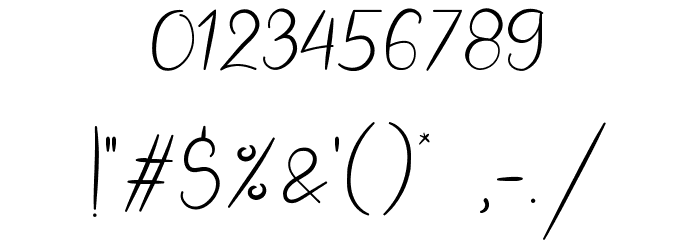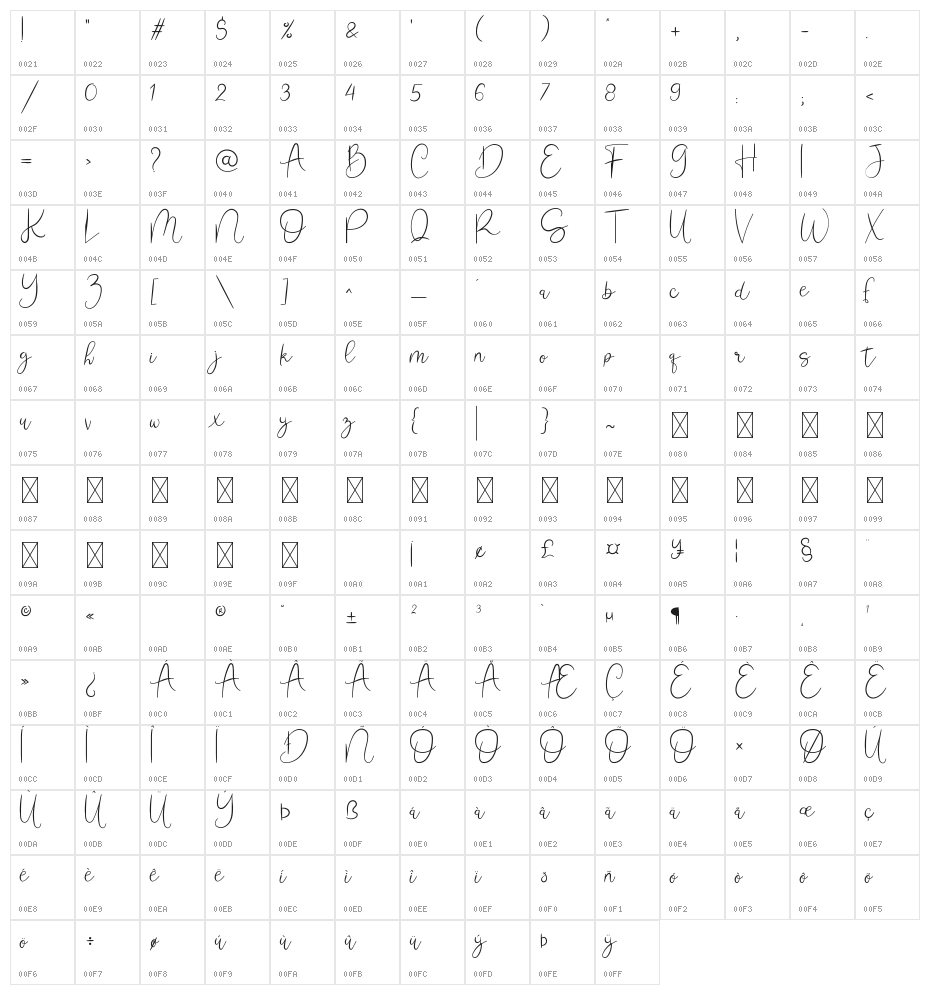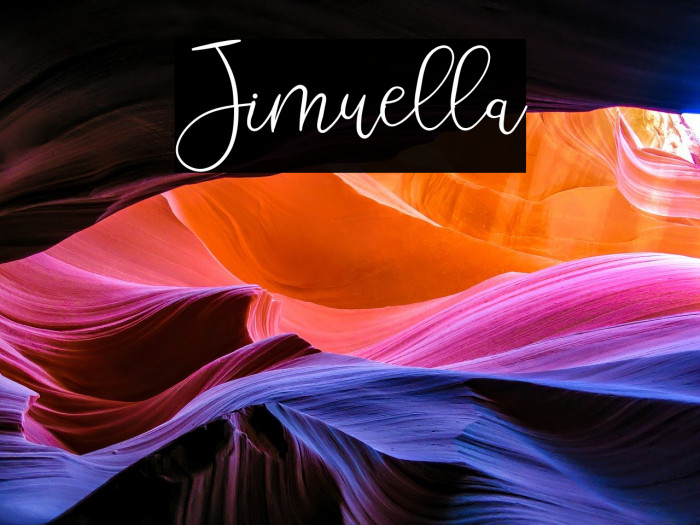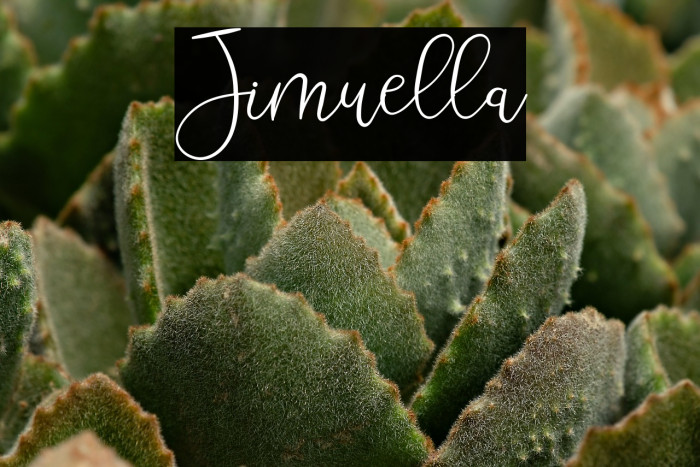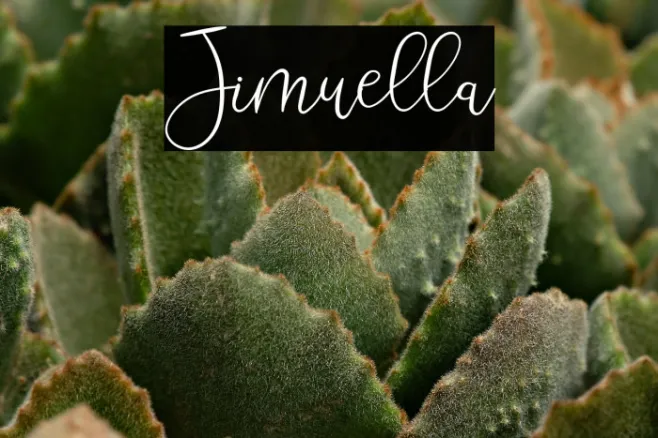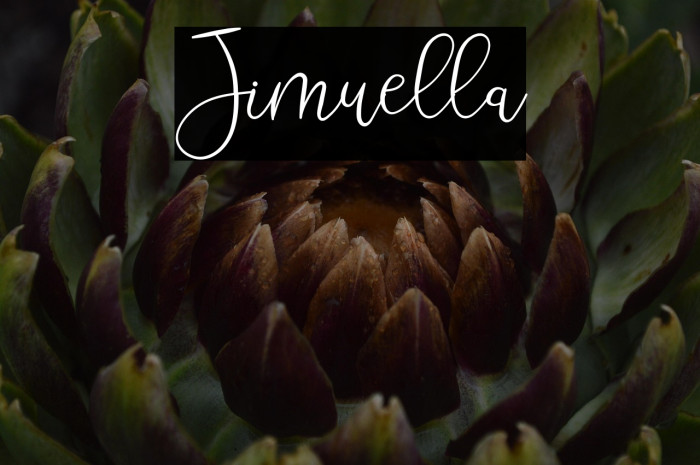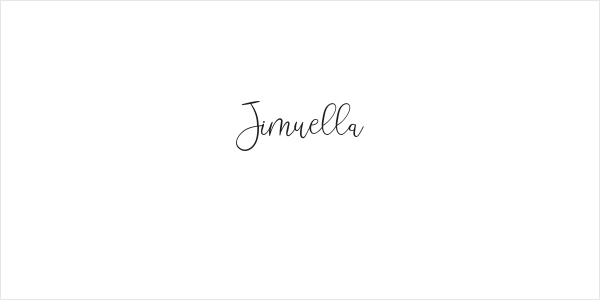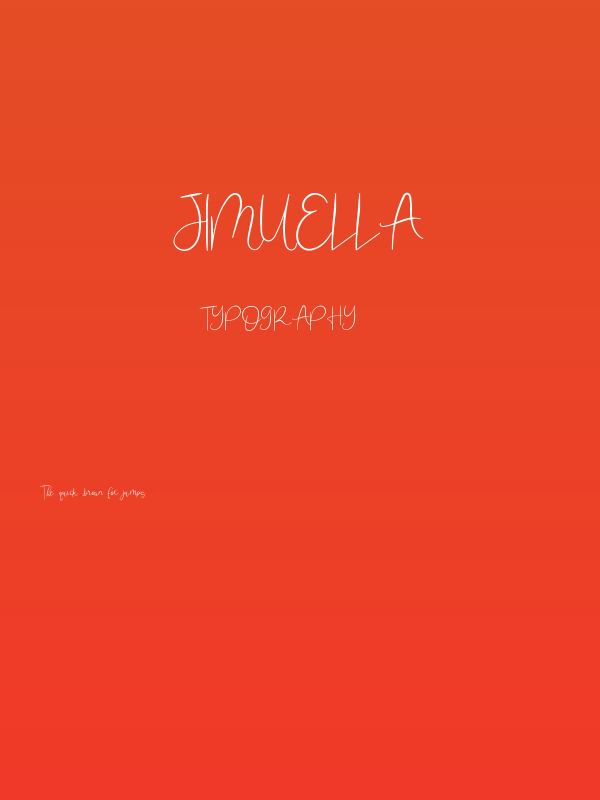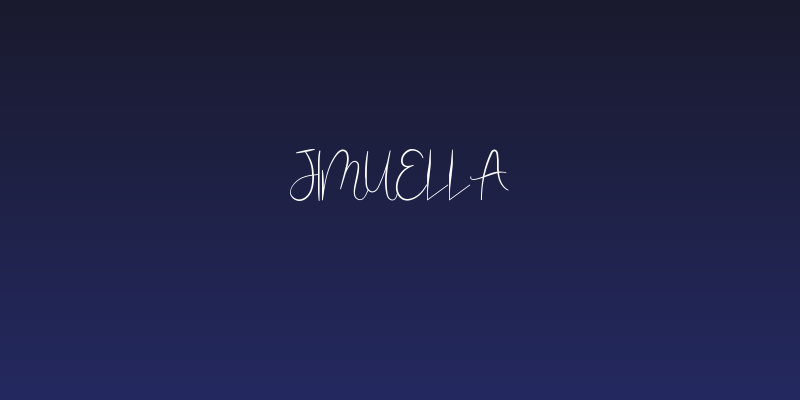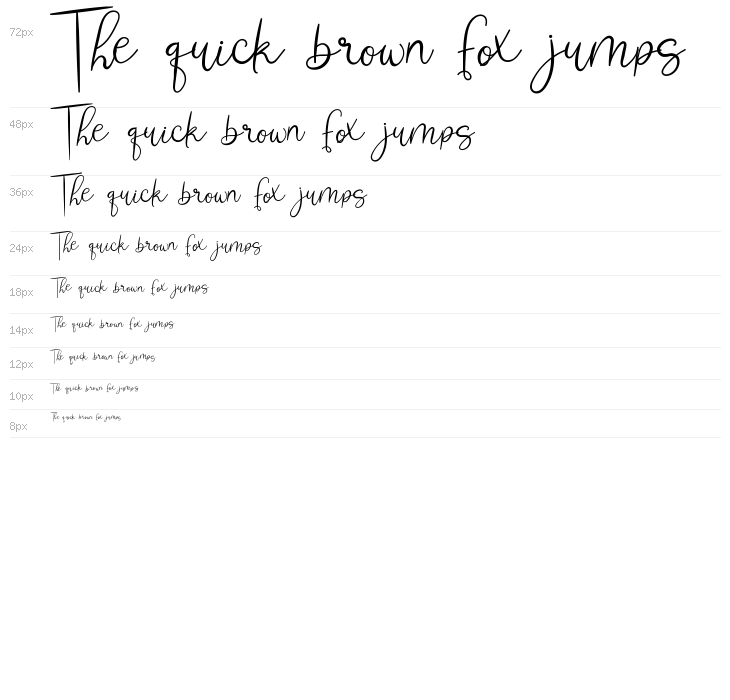
Jimuella Font
Jimuella Description
This font features a playful and elegant script style with fluid, connected strokes that give it a handwritten appearance. The uppercase letters are tall and slightly narrow, with a graceful flow that adds a touch of sophistication. The lowercase letters maintain a consistent style, with smooth curves and loops that enhance readability while retaining a casual charm. The numerals are well-proportioned, matching the overall aesthetic of the alphabet. Special characters are designed with the same attention to detail, ensuring a cohesive look across all glyphs. This font is ideal for projects that require a personal touch, such as invitations, greeting cards, or branding materials.
| Overall Style | Elegant, Playful |
| Proposed Projects | Ideal for invitations, greeting cards, branding materials, and personal projects. |